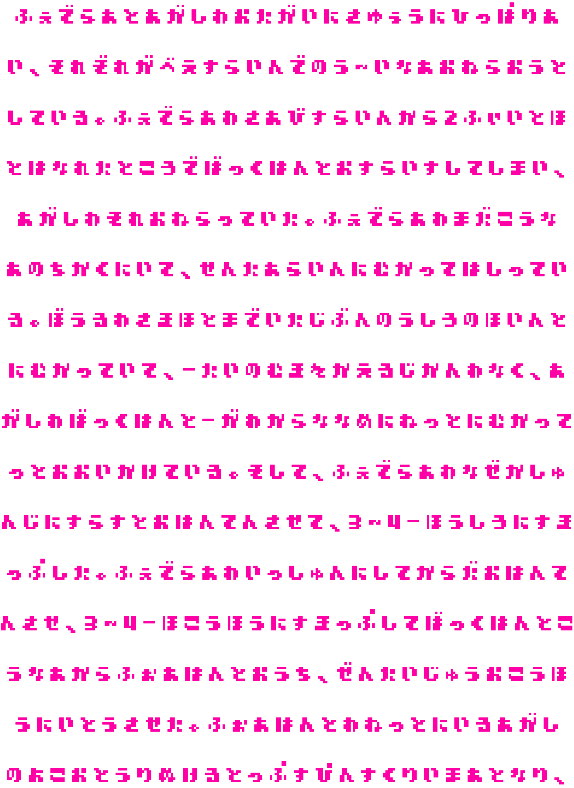
Very nice font, especially Devanagari, which isn't fully supported by FontStruct yet…
Also, the right of ङ does not connect to the next letter…
Complex rendering of isn't support fully*
Very nice design. Where does the german quote come from in the sample?